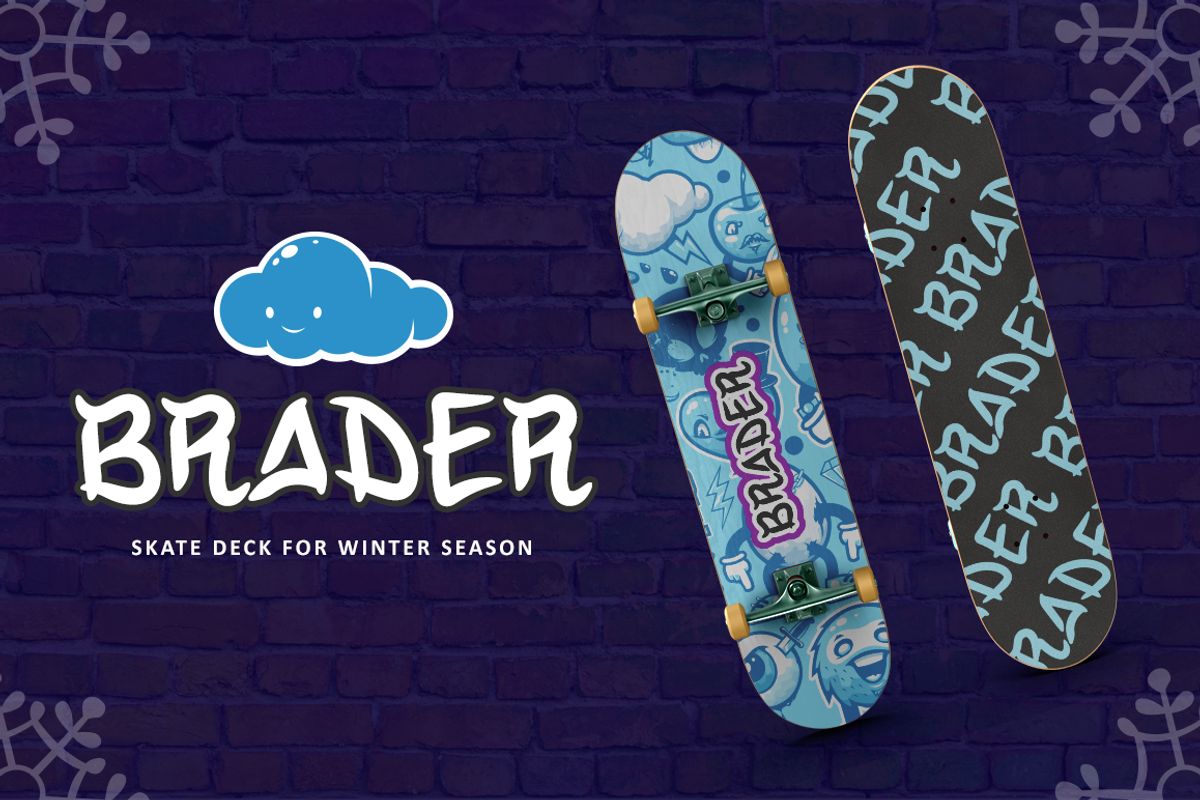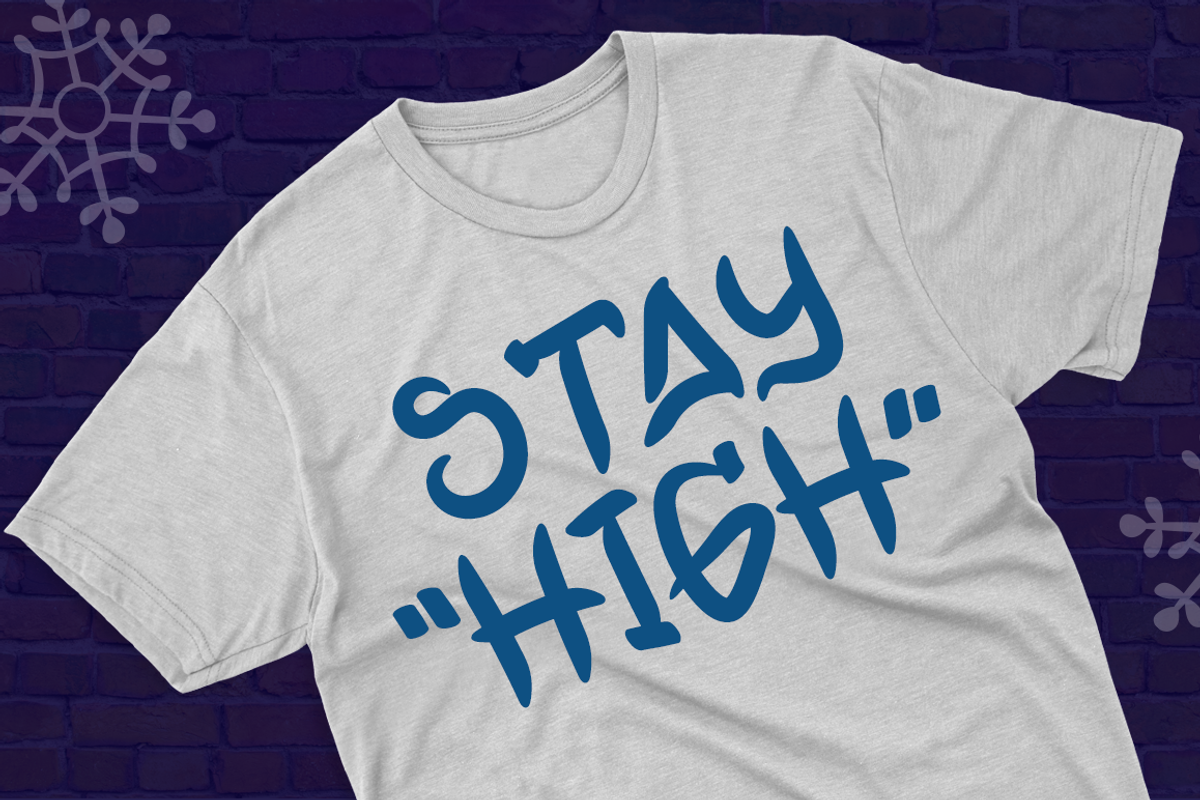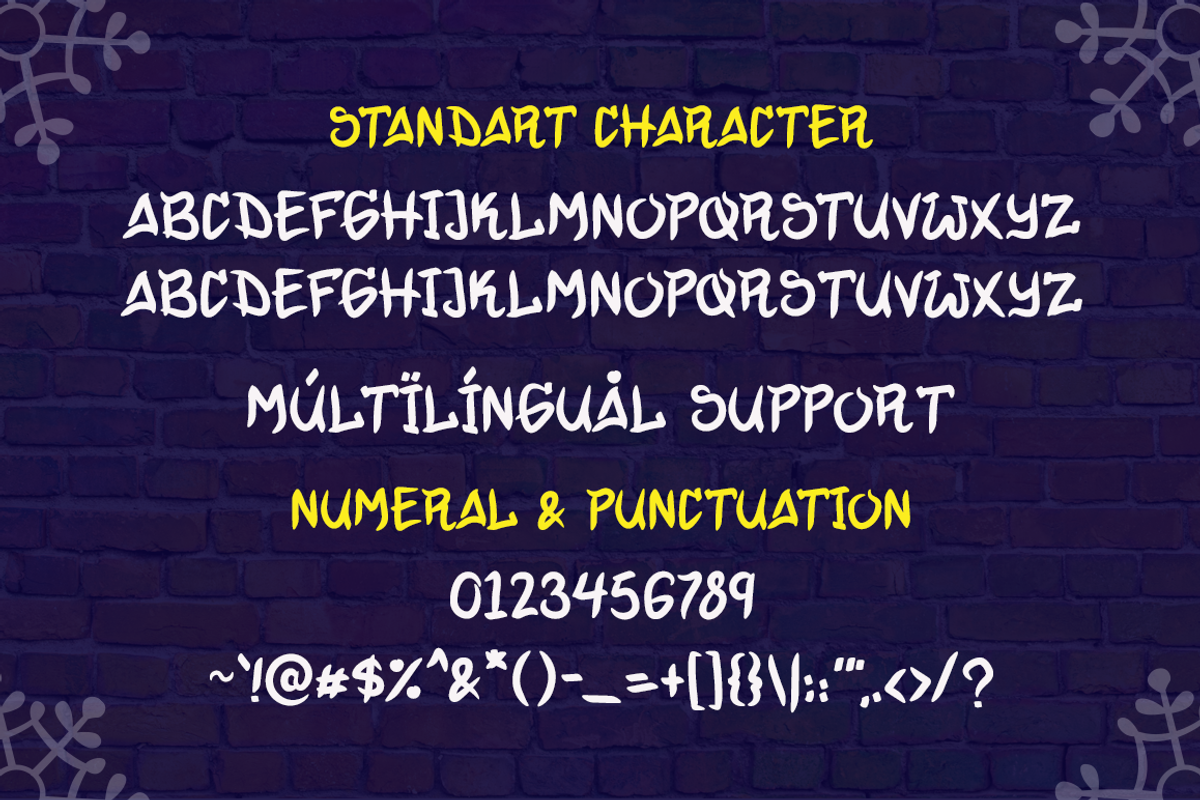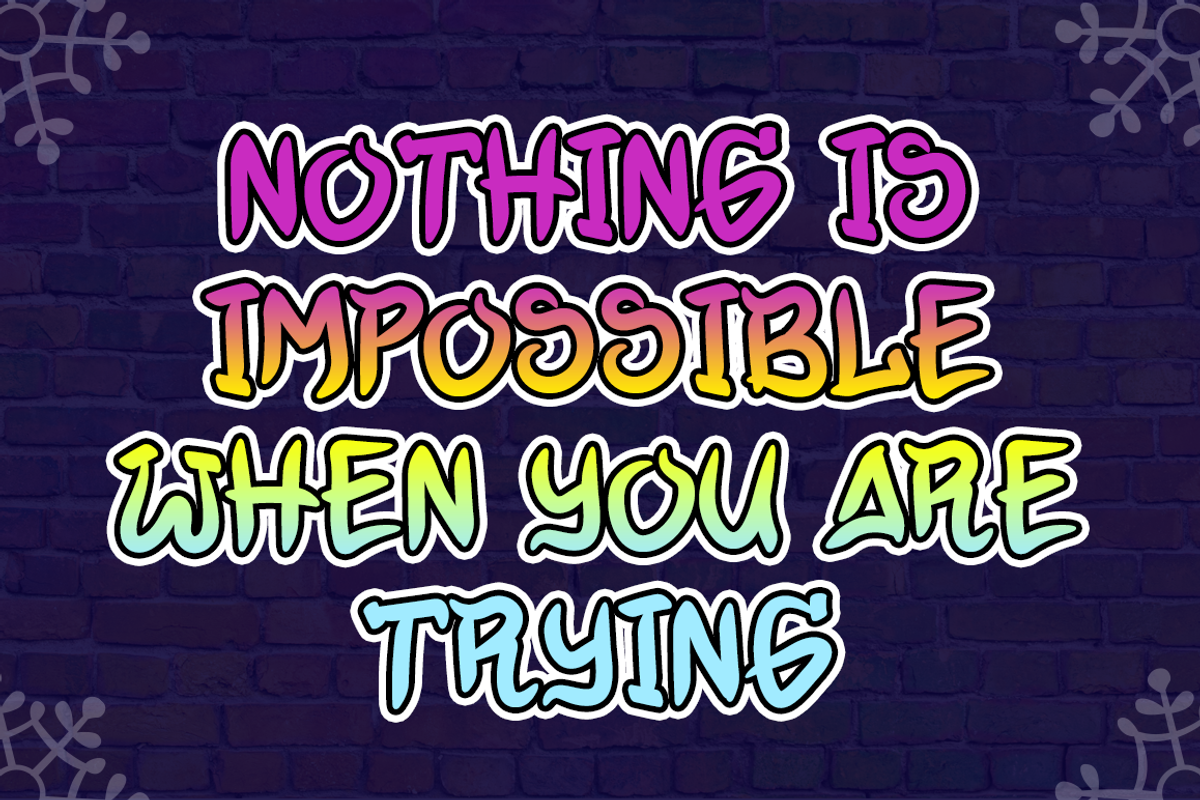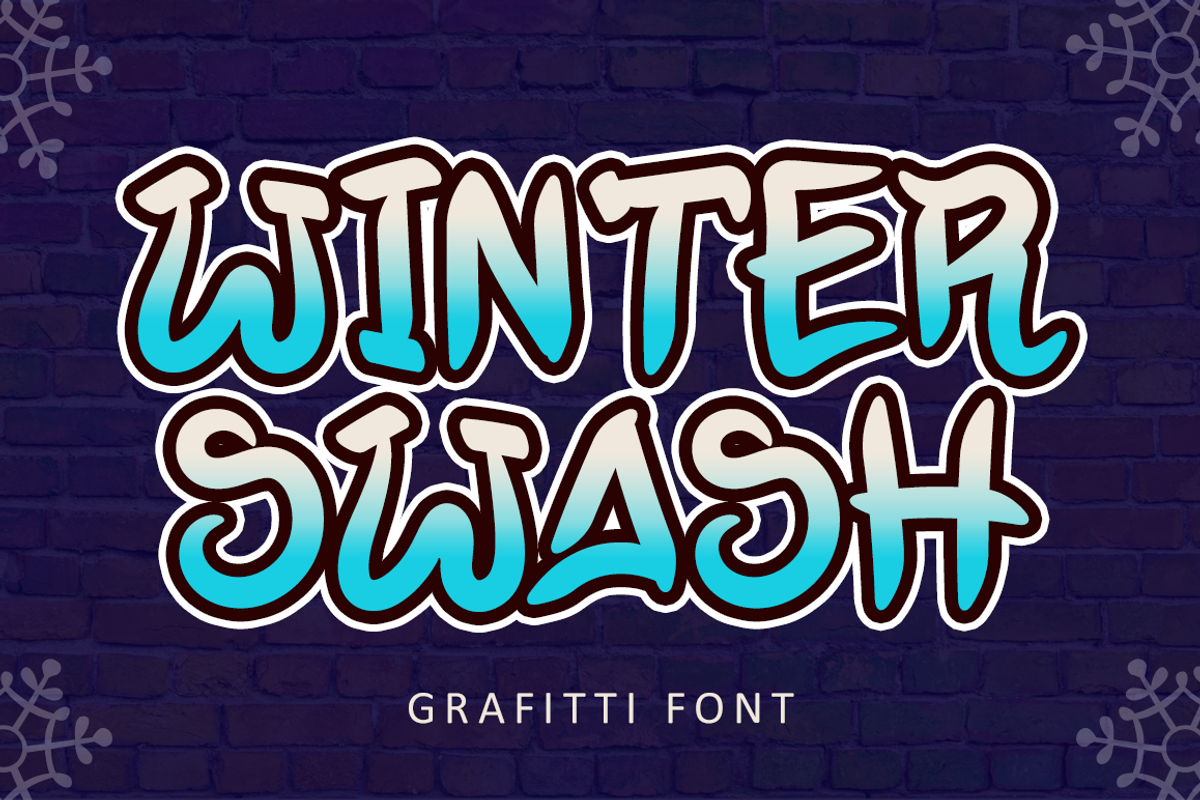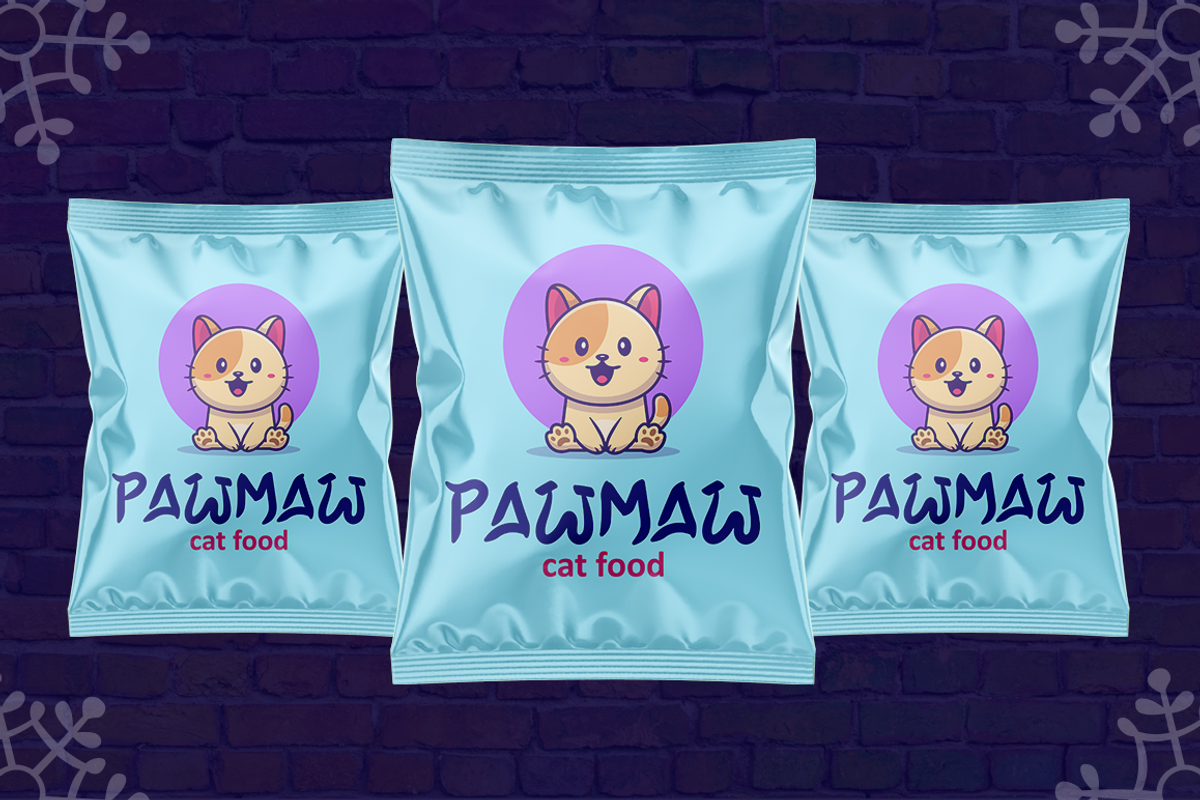
Winter Swash - Graffiti Winter Font
Introducing a new font Winter Swash inspired by graffiti style. It's bold, dramatic, urban styled display font. Add this font to your favorite creative ideas and notice how it makes them come alive like a poster, kids flyer, merchandise, quotes, branding, cartoon, comic and more.